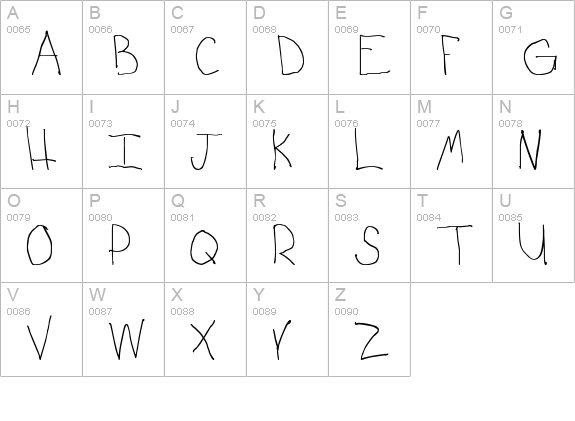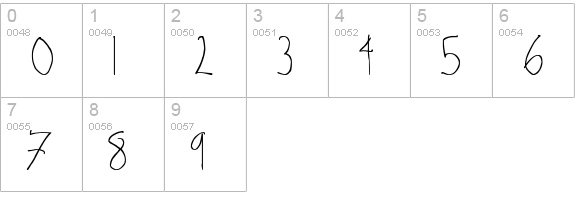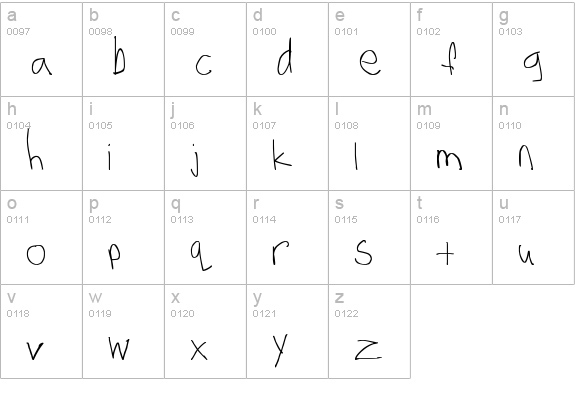
Dan Hand Font Details
Introducing Dan Hand font, a beautifully crafted typeface that brings a touch of elegance and sophistication to any project. With its graceful curves and clean lines, Dan Hand is the perfect choice for those looking to add a refined and stylish feel to their designs. This versatile font is suitable for a wide range of applications, from branding and packaging to invitations and signage. Its legibility and charm make it a popular choice among designers who want to create a distinctive and memorable visual identity. But what sets Dan Hand font apart from others is its accessibility - it is available for free download at FontsMarket.com. Yes, you read that right - this stunning typeface can be yours without spending a dime. This makes it an ideal option for students, freelancers, and anyone on a tight budget who still wants to create professional-looking designs. Whether you're a seasoned designer or just starting out, Dan Hand font is sure to inspire and elevate your work. Its timeless appeal and effortless elegance will captivate your audience and leave a lasting impression. So why wait? Head over to FontsMarket.com and download Dan Hand font today, and let your creativity soar.